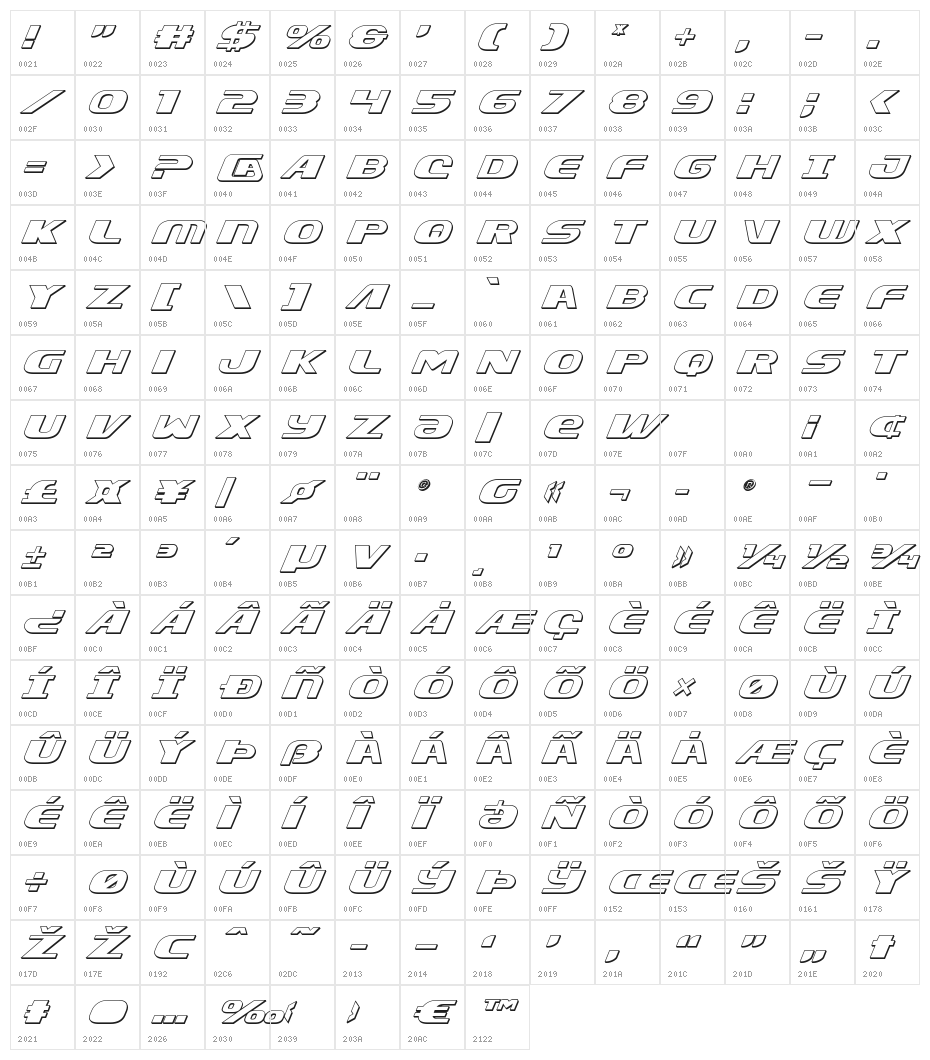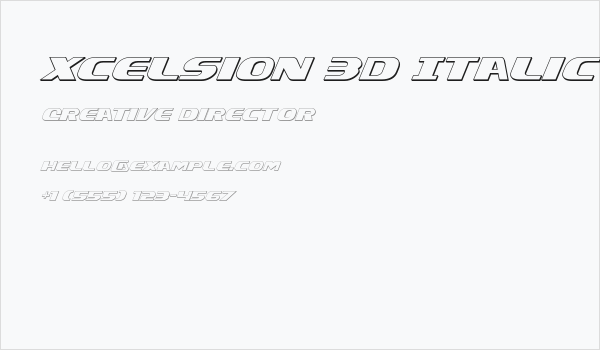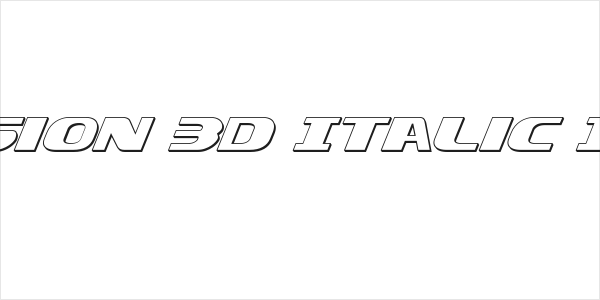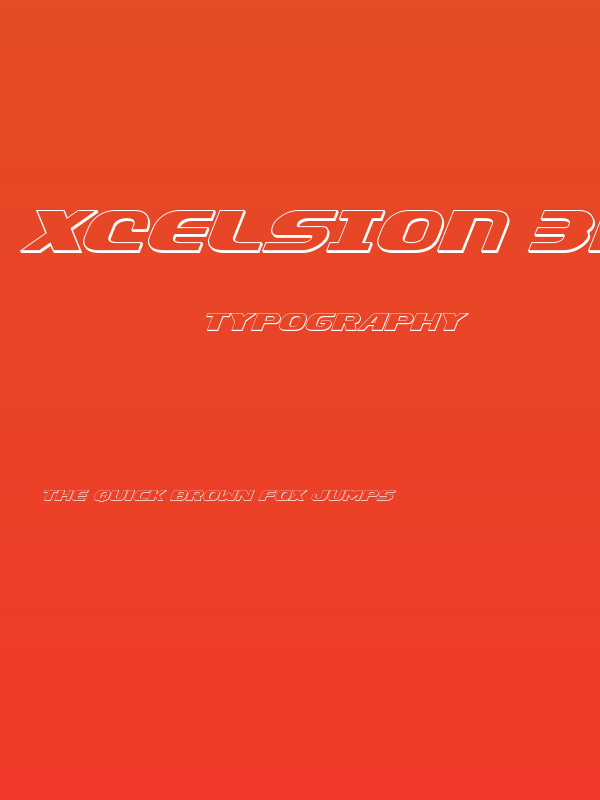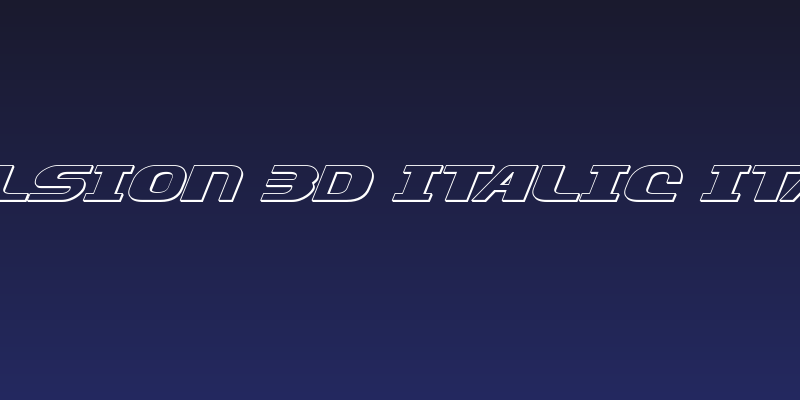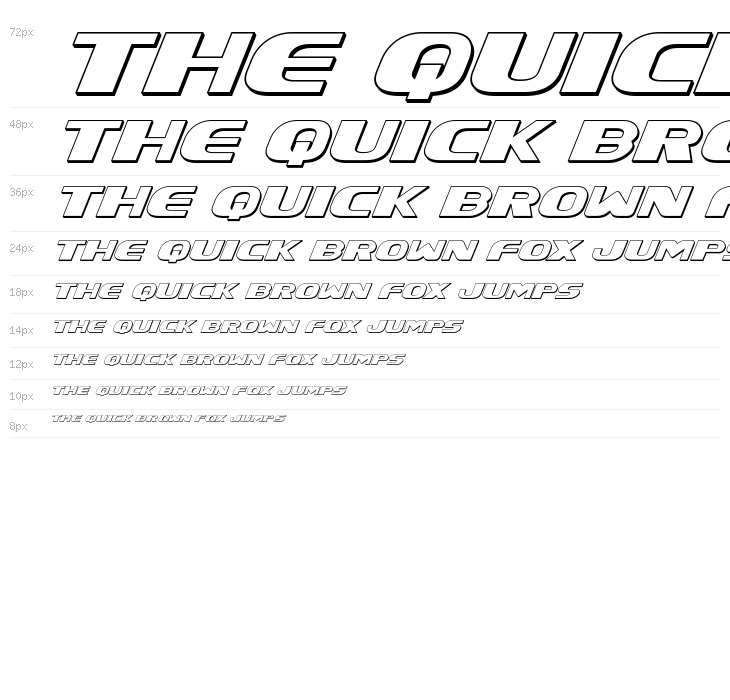
Xcelsion 3D Italic Italic Font
Xcelsion 3D Italic Italic Description
This font features a bold, three-dimensional design with italicized characters, giving it a dynamic and futuristic appearance. The letters are outlined, creating a sense of depth and movement. The uppercase and lowercase alphabets maintain a consistent style, with sharp angles and clean lines. The numerals and special characters are designed to complement the letters, ensuring a cohesive look across all text. This font's unique style makes it suitable for projects that require a modern and eye-catching aesthetic.
| Proposed Projects | Ideal for use in technology branding, video game titles, sci-fi movie posters, and modern advertising campaigns. |